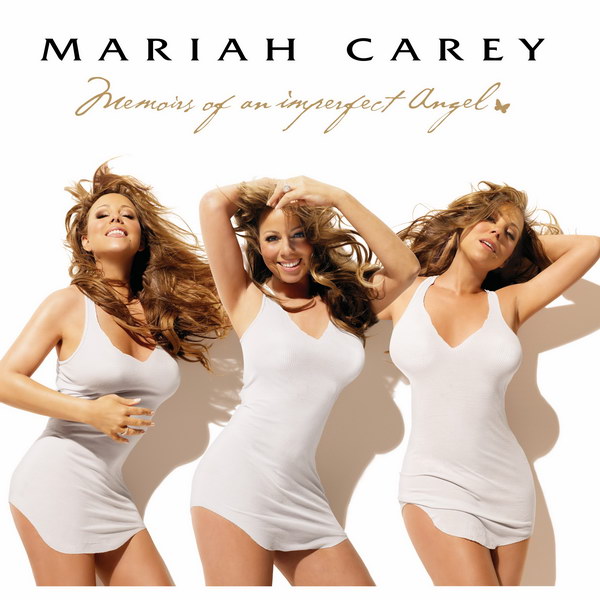
Memoirs of An Imperfect Angel Font
Fonts in UseMemoirs of An Imperfect Angel is the twelfth studio album by American singer-songwriter Mariah Carey, released in 2009.
The album's title font resembles P22 Cezanne Regular, which is based on French artist Paul Cezanne's handwriting and the singer's name font is similar to Friz Quadrata designed by Swiss designer Ernst Friz in 1978. Both are available as commercial fonts to purchase.